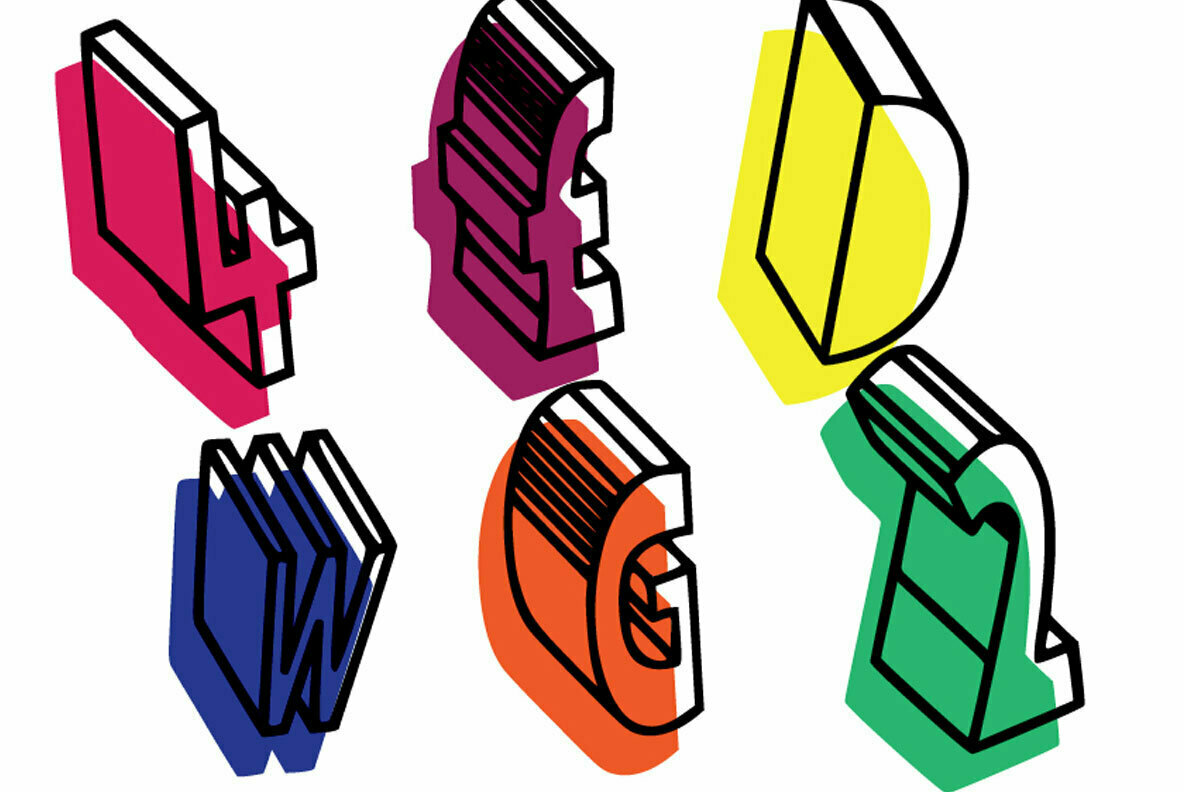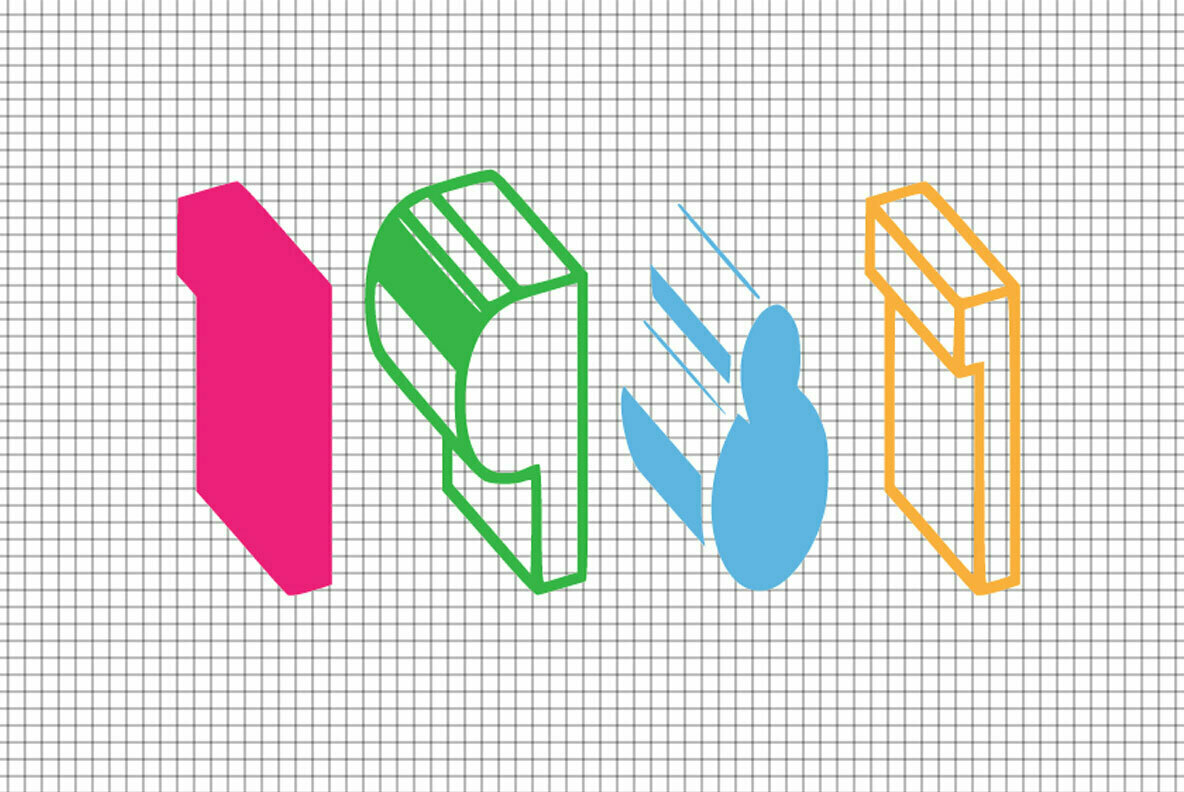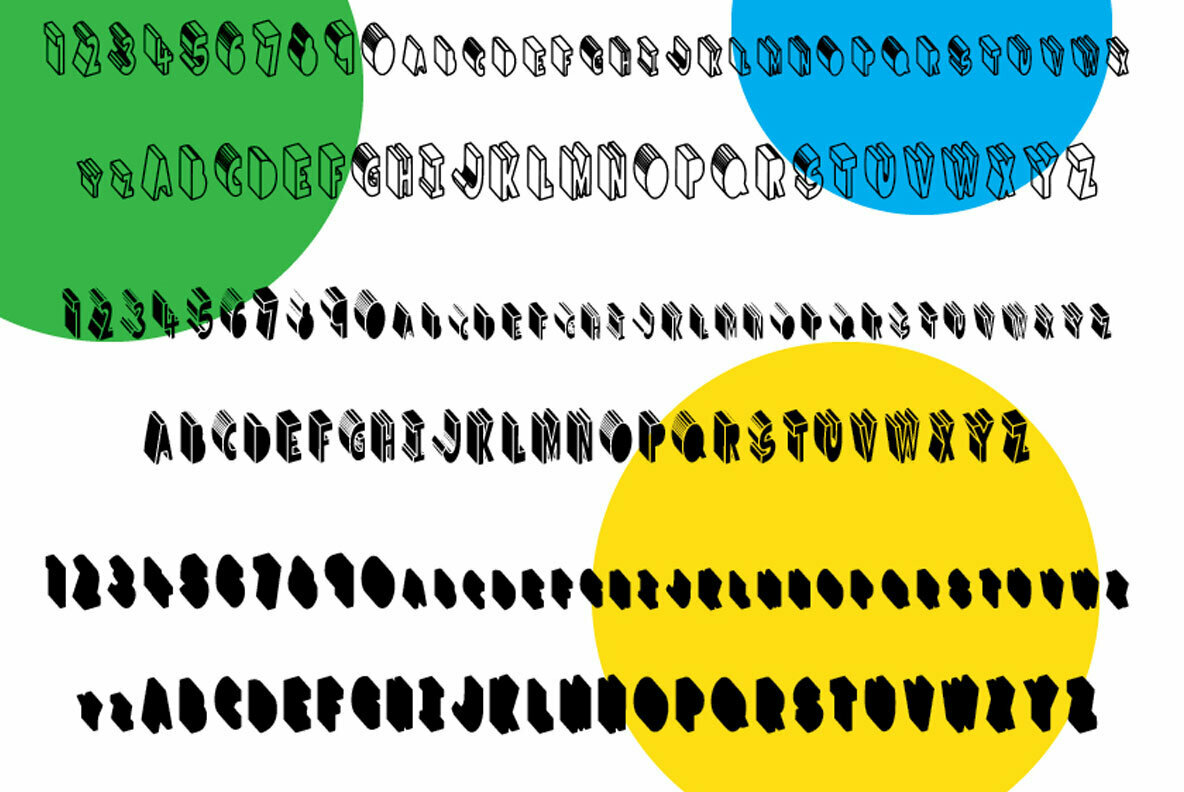
Super Cool 3D 1
Super Cool 3D features bags of personality! It comes in 3 weights for you to experiment with it! Ignite your creativity with this bold 3D styled san serif font.